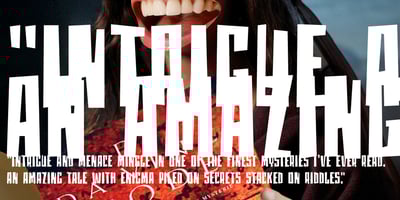
MoanLisa Font Family was designed by Jeroen “Joebob” van der Ham and published by JOEBOB graphics. MoanLisa contains 1 styles and family package options. MoanLisa, a font for monster movies. Caps only…